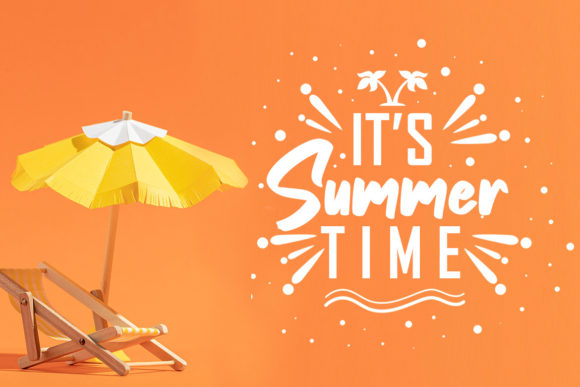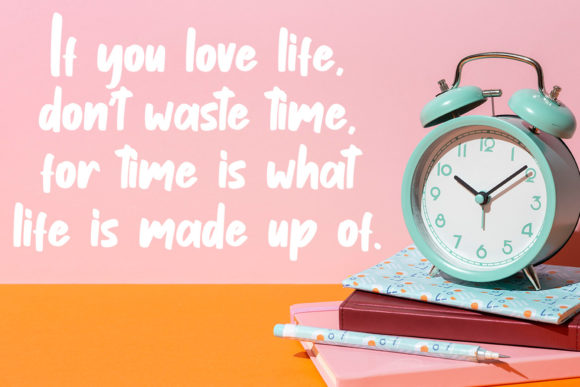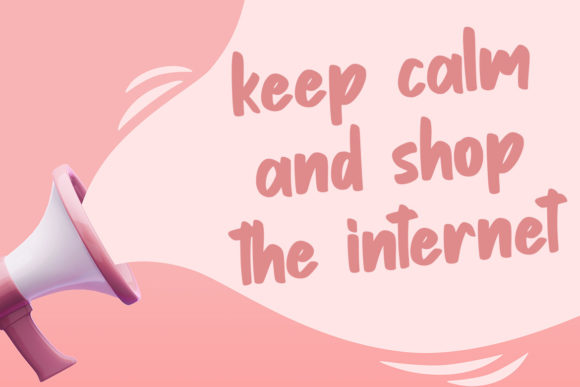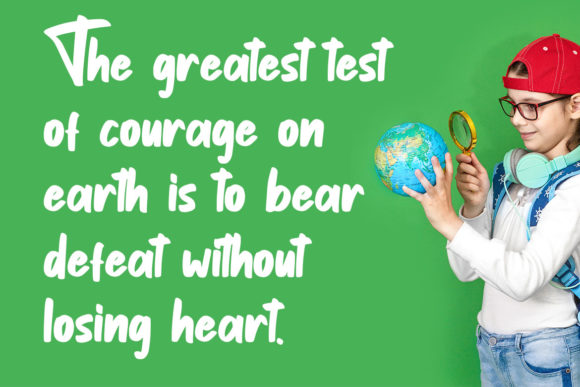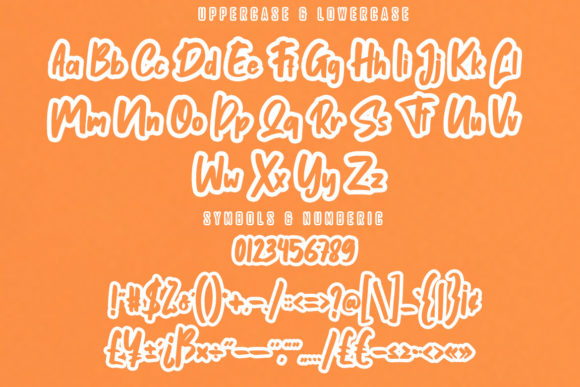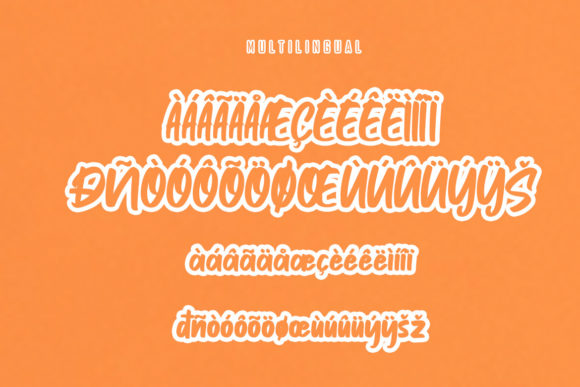
The Perfect Typography to Spice Up Your Design Game
Have you ever found yourself stuck in a creative rut, staring blankly at your design project, and suddenly, an idea strikes – a bold, eye-catching font that perfectly captures the essence of your message. For designers, this moment of epiphany is music to their ears, and it’s exactly what the
| 👤 Author | Skiiller Studio |
As a cool, retro, and urban styled display font, the
With the
Key Features of Chatsile Font
- Font Family: Chatsile Font is a unique, hand-drawn sans-serif font that is perfect for creative and modern designs.
- Character Count: The font contains 1000+ glyphs, including Latin, Cyrillic, and Greek alphabets, as well as a range of punctuation and special characters.
- Size: Chatsile Font is available in 5 different weights, ranging from Light to Black, allowing for flexibility and versatility in design applications.
- Resolution: Chatsile Font is designed to be scalable, making it suitable for use in high-resolution designs, such as those used in print media, web design, and digital graphics.
- Unique Characteristics: Chatsile Font features a distinctive, hand-drawn aesthetic, with subtle irregularities and imperfections that give it a unique, human touch.
Chatsile Font Review
First of all, I’d like to say that Chatsile Font has a lot of potential, and that’s what drew me to it initially. The font has a ✨ unique and modern design that catches the eye. It’s perfect for creating a strong visual identity for your brand or project.
The font’s versatility is another advantage. It can be used for various purposes, from headings to body text. It’s also highly customizable, which is a big plus for designers like me.
Now, let’s talk about the limitations. One of the main issues I have with Chatsile Font is its ⚠️ limited character set. It’s not as extensive as some other fonts in the market, which can be a problem if you need to use special characters or languages.
Another ⚠️ concern is the font’s readability at smaller sizes. While it looks great at larger sizes, it can become difficult to read at smaller sizes, which may not be ideal for certain applications.
Overall, I’d say that Chatsile Font is a solid choice for designers looking for a modern and unique font. However, it’s essential to consider its limitations before making a final decision.
- ✨ Unique and modern design
- ✨ Versatile and highly customizable
- ⚠️ Limited character set
- ⚠️ Readability issues at smaller sizes
Chatsile Font is ideal for:
- Creating unique and stylish typography for branding and marketing materials.
- Adding a touch of elegance to digital and print designs.
- Designing invitations, menus, and other event materials.